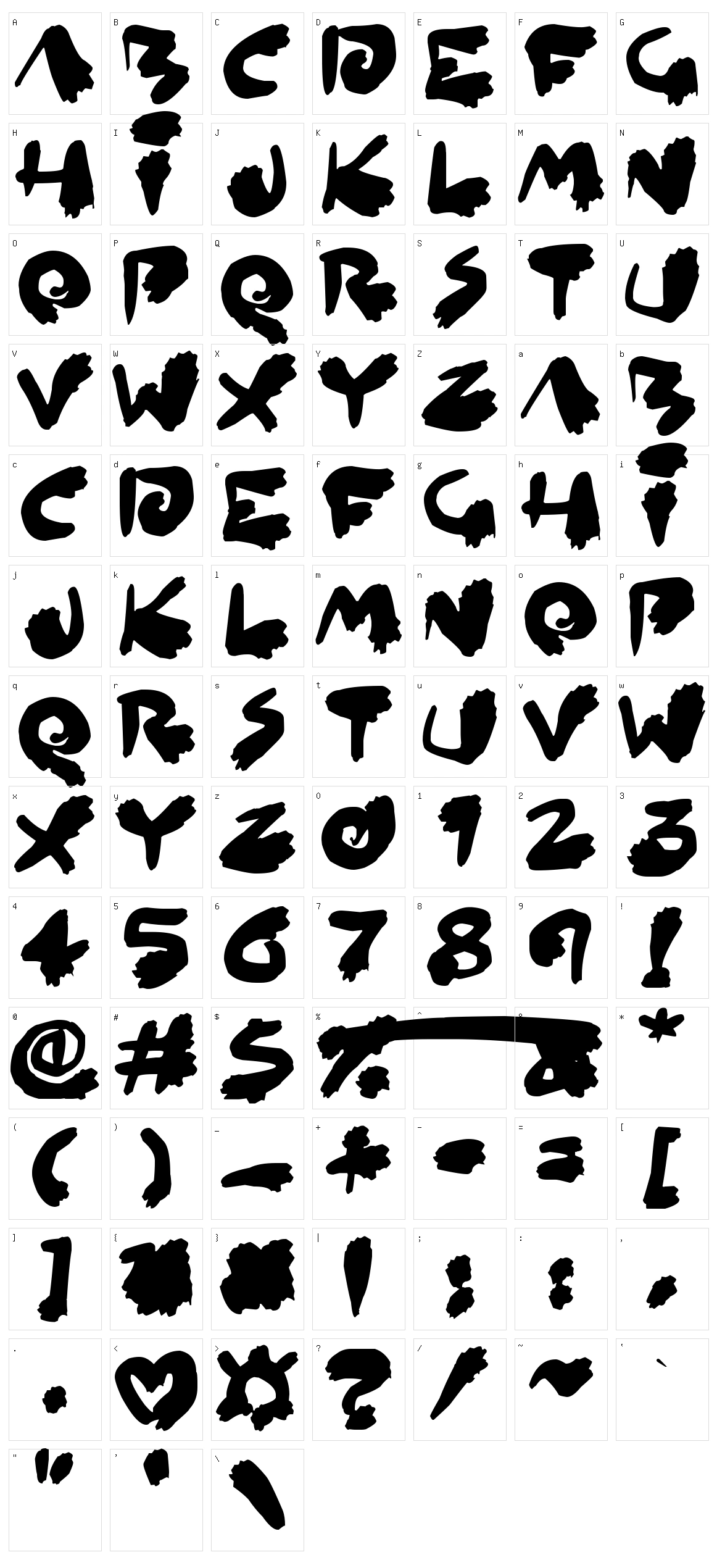
The free font Inked Out is carefully designed by Hawtpixel, showcasing a thoughtful balance of creativity and usability and falls under the Script font style. When you download the ZIP file, it contains only 96.49 KB of font files, making it lightweight and quick to download. Please review the license details below to understand permitted usage and distribution rights. If license information is not available, we recommend using this font for personal projects only or contacting the author directly for commercial usage permissions.